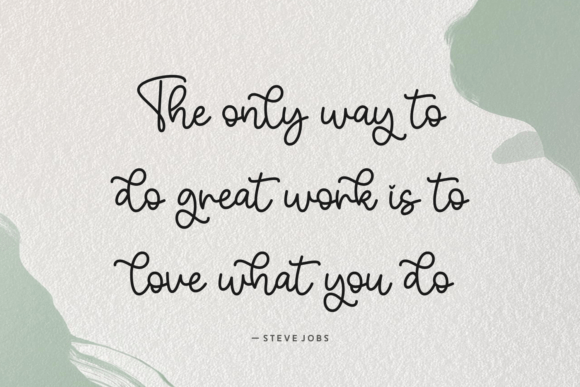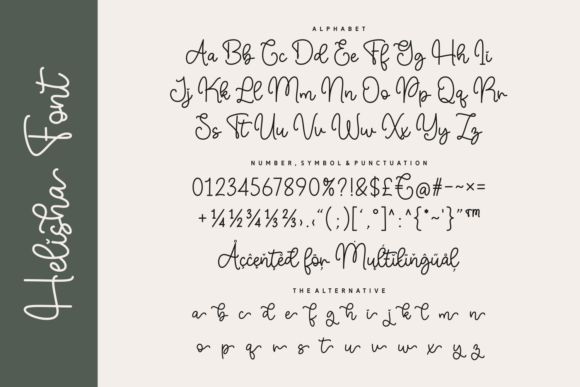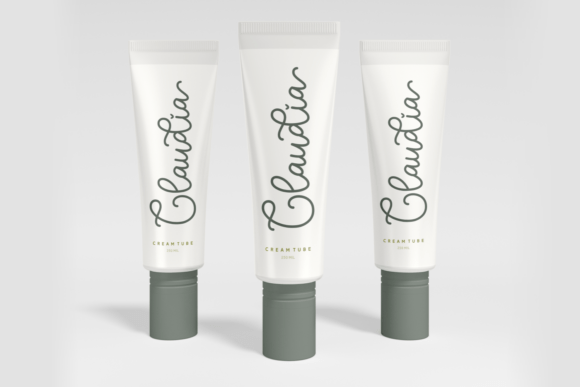
Introducing Helisha Font: The Perfect Blend of Sophistication and Creativity
In the world of typography, fonts play a crucial role in conveying the tone and personality of a brand or design. For designers and crafters, finding the right font can make all the difference in creating visually appealing and effective designs. If you’re looking for a font that exudes elegance, sophistication, and creativity, look no further than Helisha Font. In this article, we’ll dive into the features and benefits of Helisha Font, and explore how it can elevate your designs to the next level.
What is Helisha Font?
Helisha Font is an authentic script calligraphy font that boasts a modern, playful flair. Its flowing lines and delicate details make it perfect for creating charming invitations, elegant branding, heartfelt quotes, and social media graphics. With Helisha, you can add a personal touch to your designs, making them stand out from the crowd.
Key Features of Helisha Font
• Authentic Script Calligraphy: Helisha Font is a true script calligraphy font, with elegant and flowing lines that mimic the look of handwritten calligraphy.
• Modern and Playful Flair: Despite its classic roots, Helisha Font has a modern and playful twist, making it perfect for designs that require a touch of whimsy.
• Delicate Details: The font features delicate details that add a level of sophistication and elegance to your designs.
• Versatile: Helisha Font is versatile and can be used for a wide range of design projects, from invitations and branding to quotes and social media graphics.
Benefits of Using Helisha Font
So, why should you choose Helisha Font for your design projects? Here are just a few benefits of using this beautiful font:
• Adds a Personal Touch: Helisha Font adds a personal touch to your designs, making them feel more human and relatable.
• Elevates Your Brand: With its elegant and sophisticated look, Helisha Font can help elevate your brand and make it more memorable.
• Perfect for Creative Projects: Whether you’re working on a creative project or designing for a client, Helisha Font is the perfect choice for adding a touch of creativity and whimsy.
• Easy to Read: Despite its elegant look, Helisha Font is easy to read, making it perfect for body text and longer designs.
Design Ideas Using Helisha Font
Now that we’ve explored the features and benefits of Helisha Font, let’s dive into some design ideas to get you started:
• Wedding Invitations: Use Helisha Font to create beautiful and elegant wedding invitations that set the tone for the big day.
• Branding and Packaging: Add a touch of sophistication to your branding and packaging with Helisha Font, perfect for luxury brands and small businesses.
• Social Media Graphics: Use Helisha Font to create eye-catching social media graphics that stand out from the crowd and grab attention.
• Quote and Inspirational Designs: Create inspiring and motivational designs using Helisha Font, perfect for sharing on social media or using in marketing campaigns.
In conclusion, Helisha Font is a beautiful and versatile script calligraphy font that offers the perfect blend of sophistication and creativity. With its flowing lines, delicate details, and modern flair, it’s perfect for designers and crafters looking to add a personal touch to their designs. Whether you’re working on a wedding invitation, branding project, or social media graphic, Helisha Font is the perfect choice. So why wait? Download Helisha Font today and start creating stunning designs that capture the essence of your brand or message.